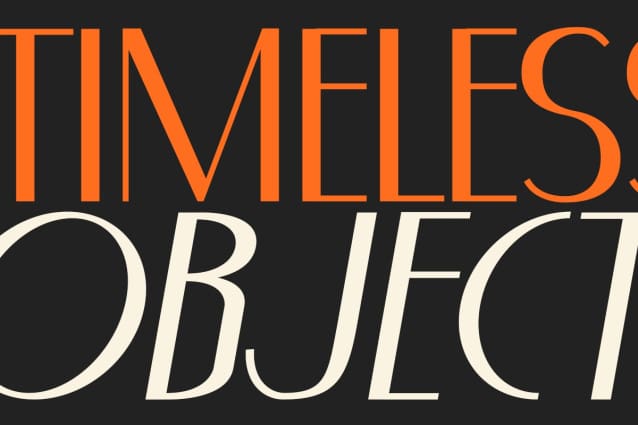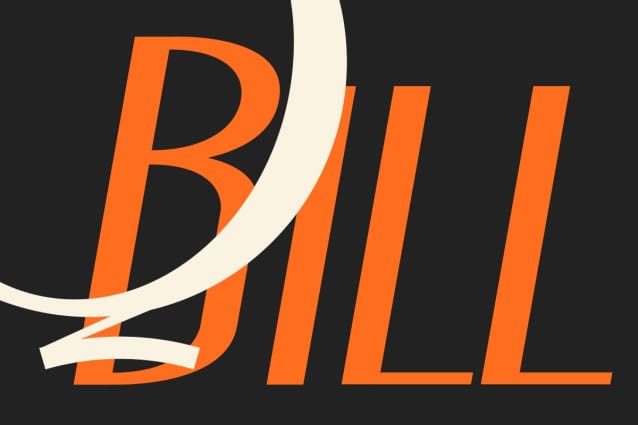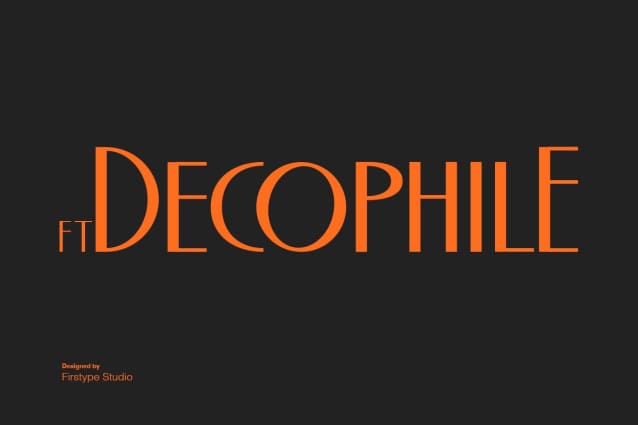
FT Decophile Font
FT Decophile Font is a sophisticated Art Deco-inspired display font that captures the spirit of modern elegance and timeless luxury. With its tall letterforms, geometric balance, and subtle curves, this typeface brings a refined aesthetic to branding, packaging, posters, and editorial designs.
Each character in FT Decophile is carefully designed to reflect precision and style — combining minimal strokes with elegant proportions that echo the glamour of the 1920s while maintaining a distinctly contemporary look.
Perfect for logos, fashion magazines, perfumes, invitations, or boutique branding, FT Decophile adds a touch of class and confidence to any creative project. Its clean details and stylish flair make it ideal for designers seeking a bold yet graceful visual statement.